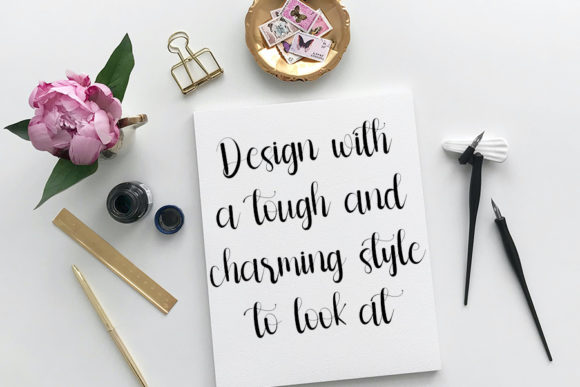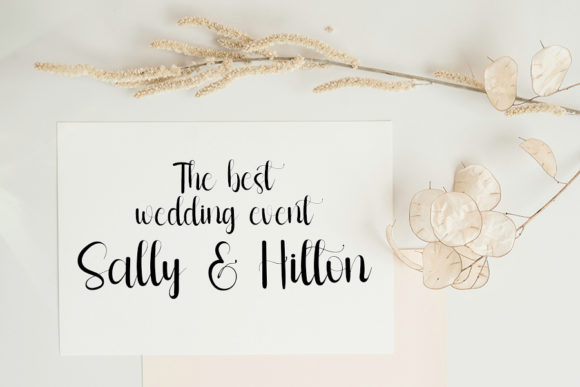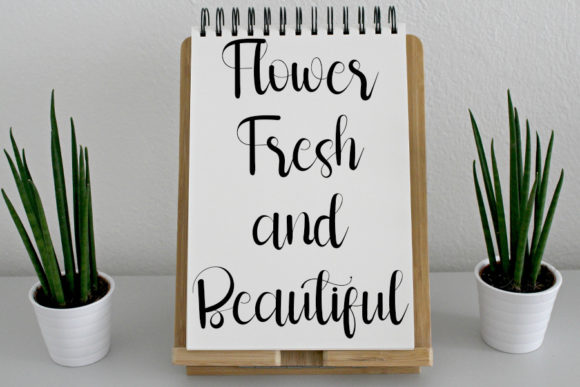
Introduction to Multitalent Font
Do you remember the moment when a spark of creativity hit you, and a brilliant idea for your next project popped into your mind? For designers, these moments are what drive us to create something truly special. And what better way to bring that idea to life than with the perfect font? Enter the Multitalent Font, a versatile and charming handwritten font that will elevate your creative project to new heights.
Whether you’re working on a free download, a social media campaign, or a high-quality design resource, the Multitalent Font is the perfect companion to help you achieve your vision. Its warm, romantic, and jolly feel is sure to captivate your audience and make your project stand out. Plus, with its transparent background, you can easily place it on any background and watch your design come to life.
- Unique, handcrafted font with a transparent background, ideal for layered designs.
- Perfect for creative projects requiring a touch of elegance and sophistication, such as branding, packaging, and editorial design.
Honest Review: Multitalent Font
I recently stumbled upon the Multitalent Font, and I’m excited to share my honest review. This free download has been a game-changer for my creative project. The font’s versatility and high quality make it an excellent addition to any design resource.
- The Multitalent Font offers a wide range of styles and weights, making it perfect for various design needs.
- The font’s limited number of languages supported may be a concern for designers working on international projects.
- The font may not be suitable for complex, highly customized designs.
Overall, the Multitalent Font is a solid addition to any design resource. While it may have some limitations, its high quality and versatility make it a valuable tool for designers. If you’re looking for a reliable, free font for your creative project, the Multitalent Font is definitely worth checking out.
For optimal results, use the Multitalent Font in bold or italic styles to add emphasis to your text. This font is ideal for creative projects, such as logos, brochures, or infographics.
Common use cases include: branding, advertising, and educational materials. Experiment with the Multitalent Font to discover its full potential and take your design to the next level.
Montserrat compares to Multitalent Font by offering a more minimalist and modern design. While Multitalent Font has a more playful feel, Montserrat provides a sleeker and more sophisticated look.
Great Vibes compares to Multitalent Font by offering a more elegant and sophisticated design. While Multitalent Font has a more playful feel, Great Vibes provides a more refined and luxurious look.